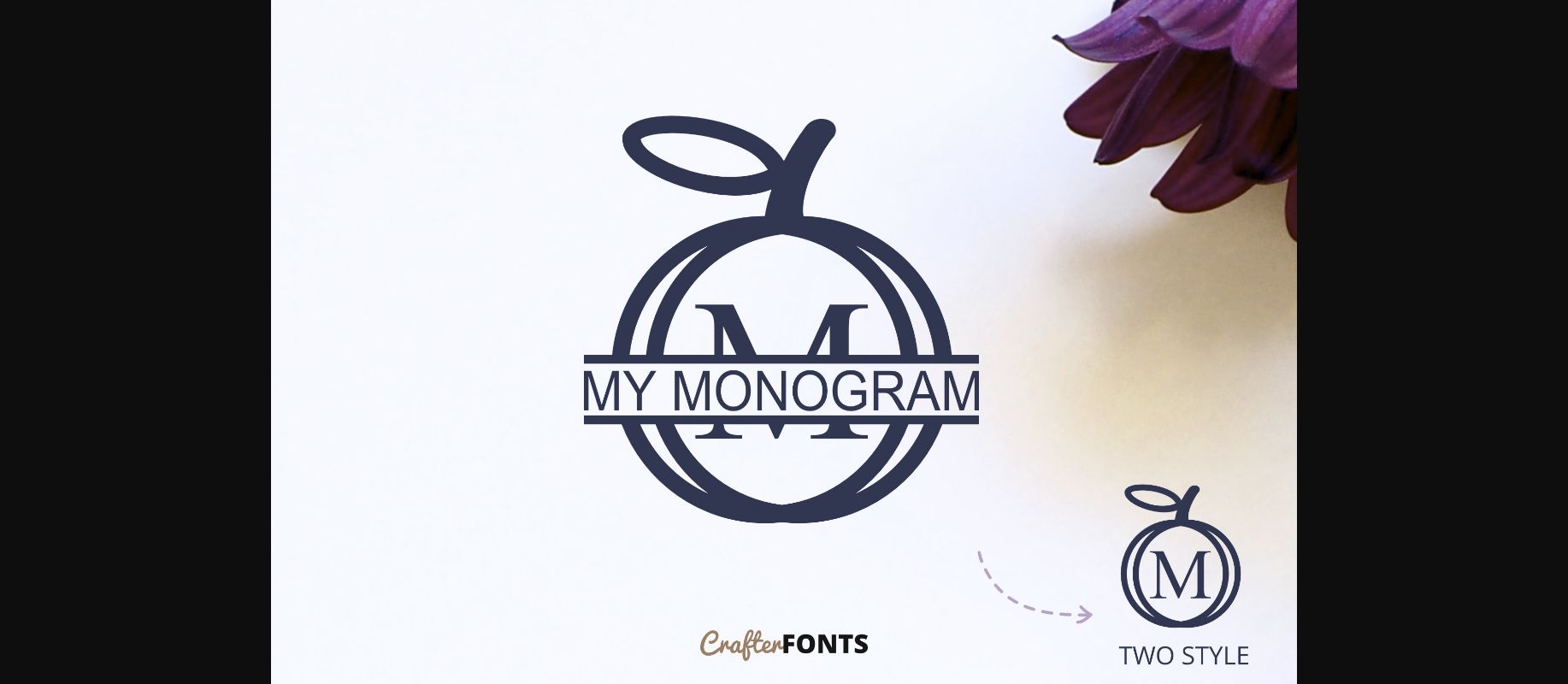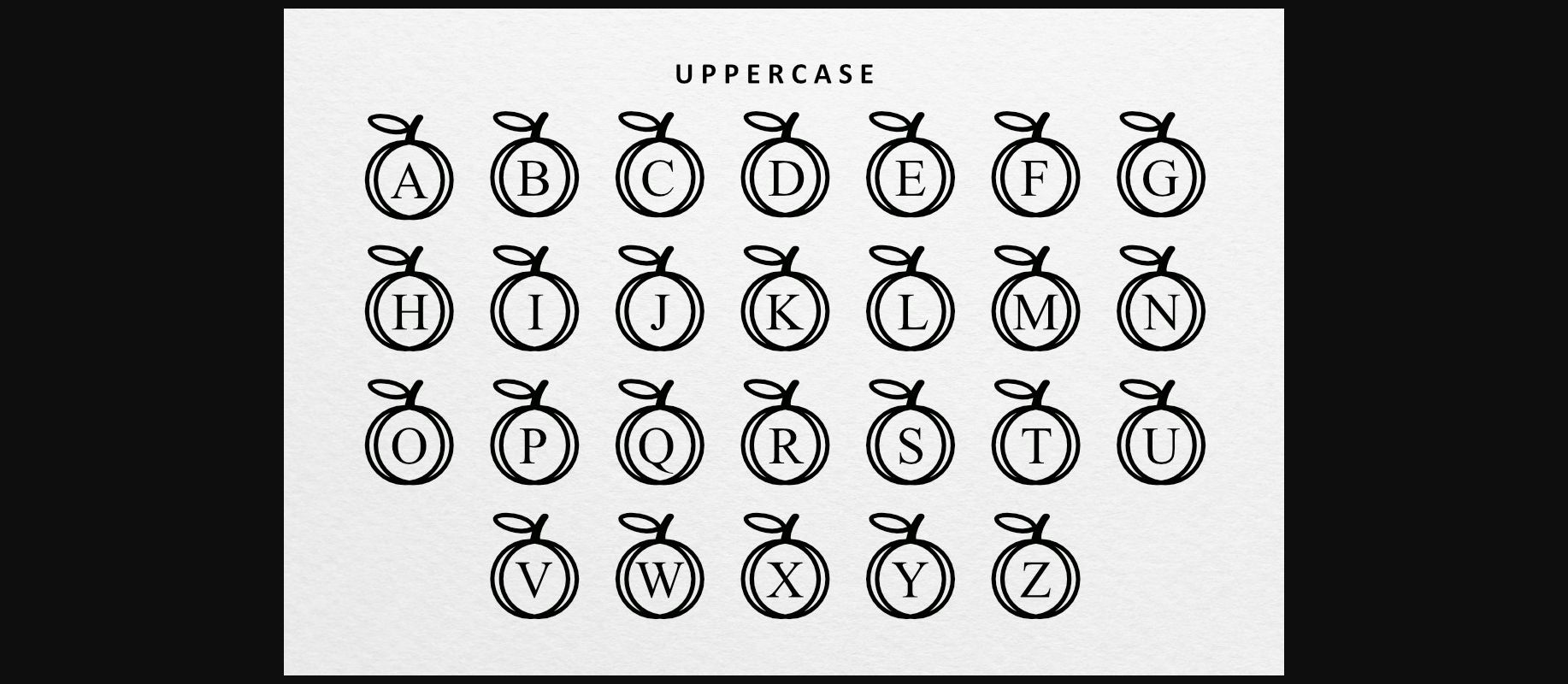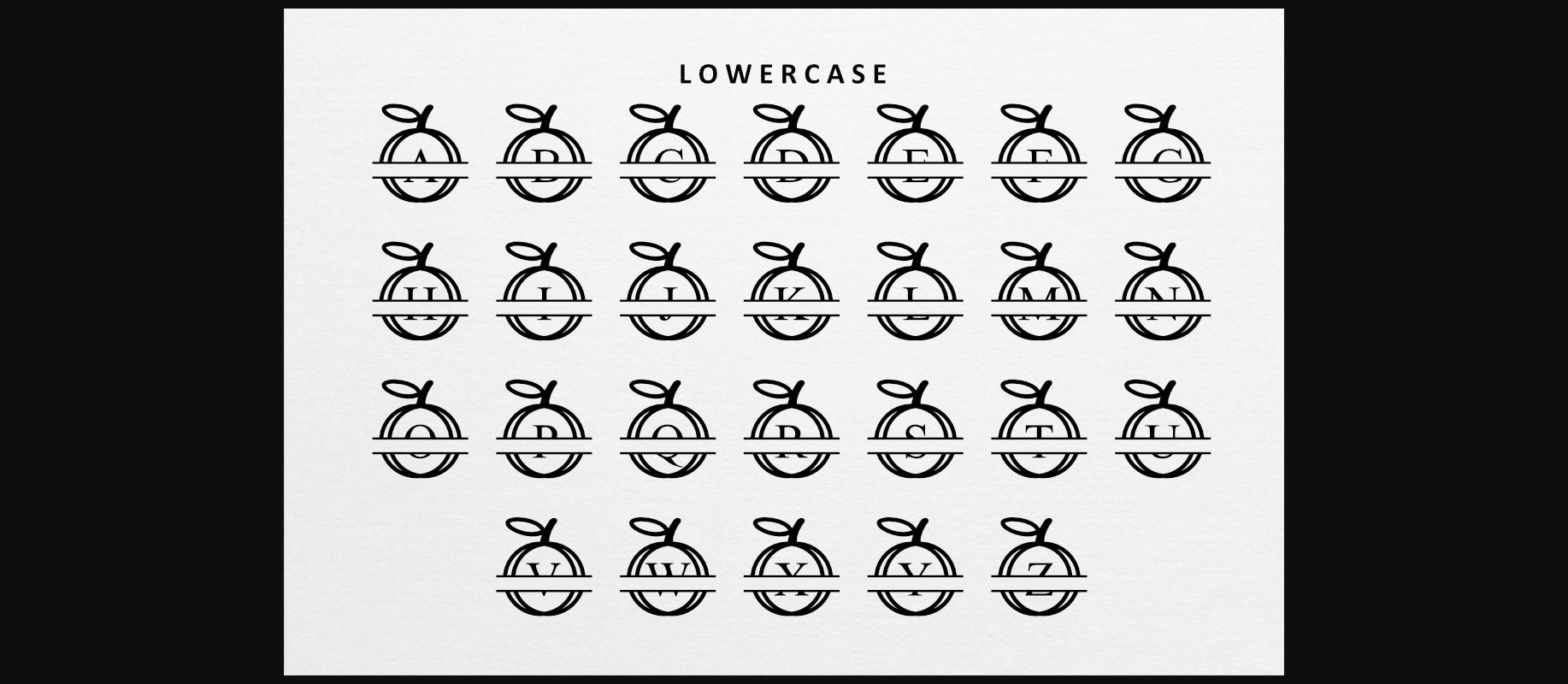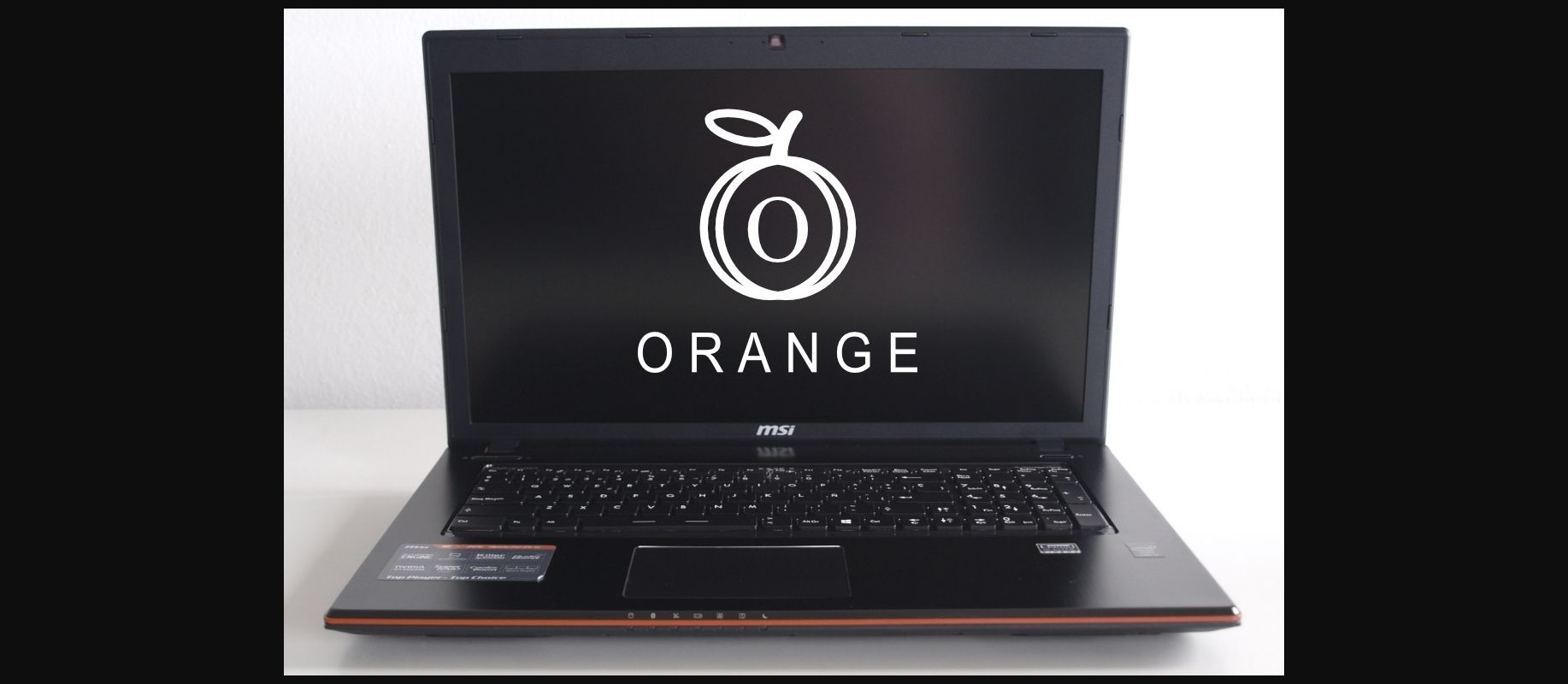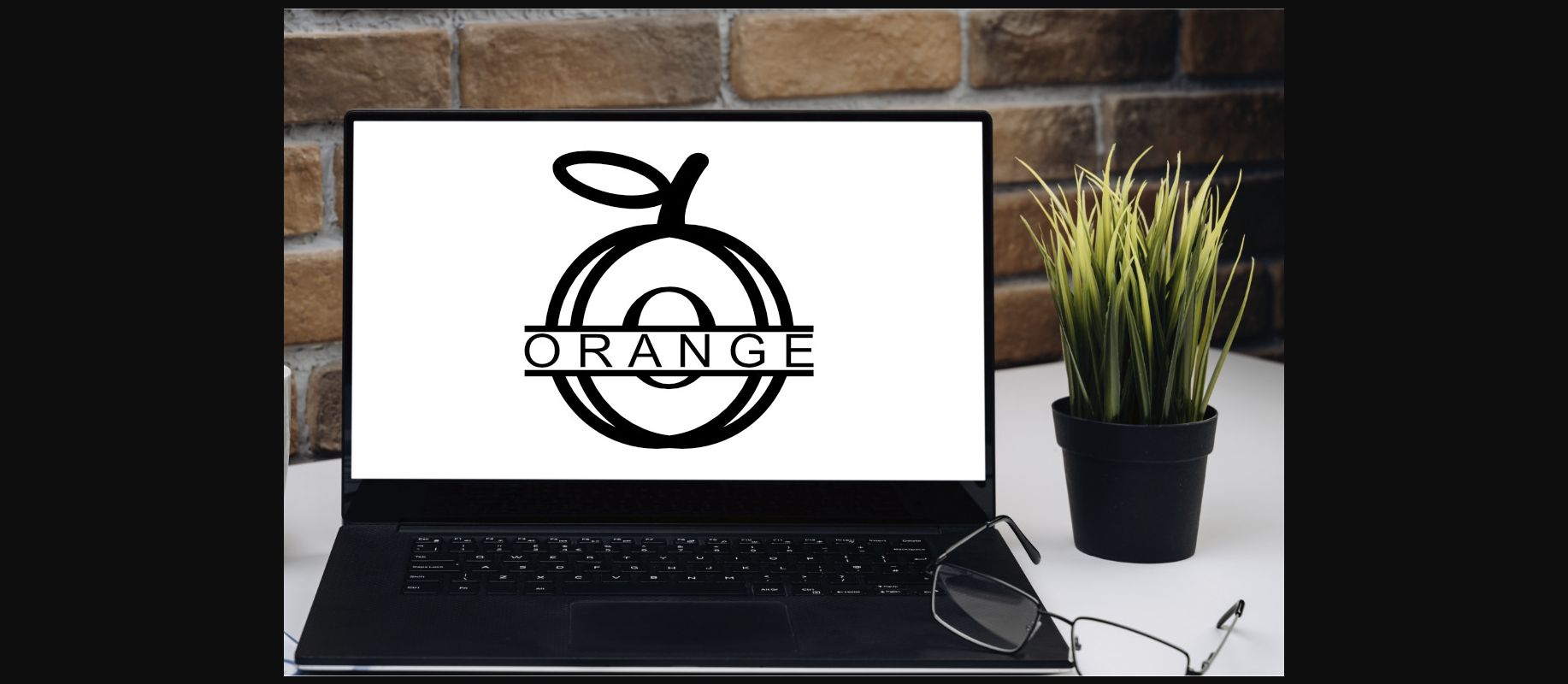
My Monogram is a cool and unique decorative font. No matter the topic, this font will be an incredible asset to your fonts’ library, as it has the potential to elevate any creation.